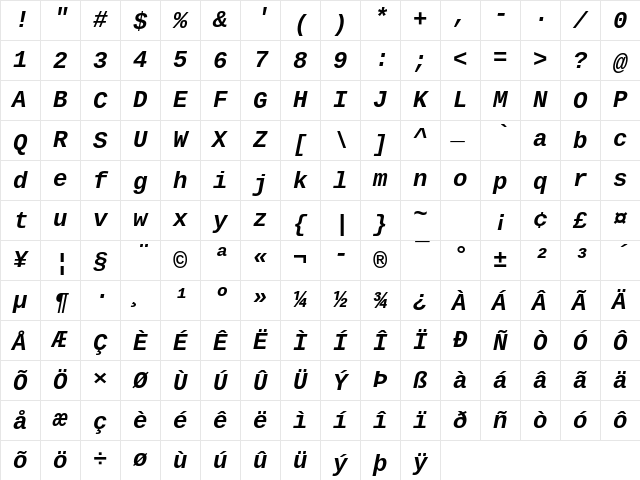
Cousine NF Bold Italic
Foundry: Monotype Imaging Inc.
Designer: Steve Matteson
Cousine NF Family
Complete Cousine NF Bold Italic glyph index. Displaying only characters natively supported by Cousine NF Bold Italic font.
Design Context for Cousine NF
Cousine NF is a composed and adaptable typeface that performs quietly and consistently across a wide range of design contexts. The slanted form adds forward momentum and visual energy. Its bold stroke weight gives it real presence on the page.
Who designed the Cousine NF Bold Italic font?